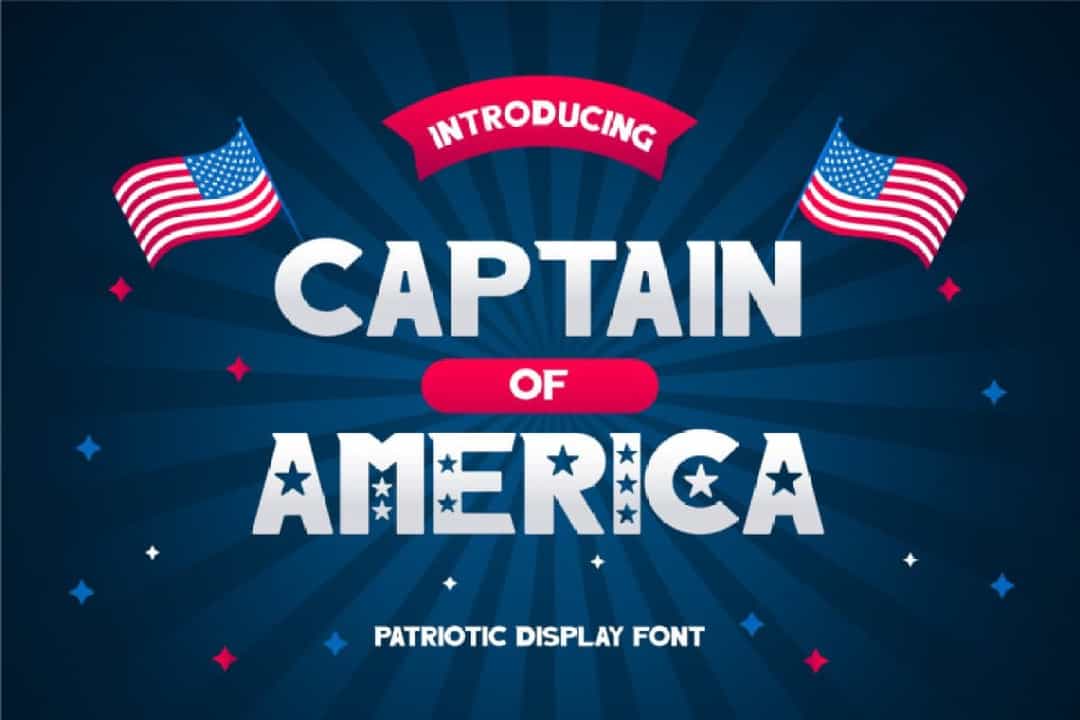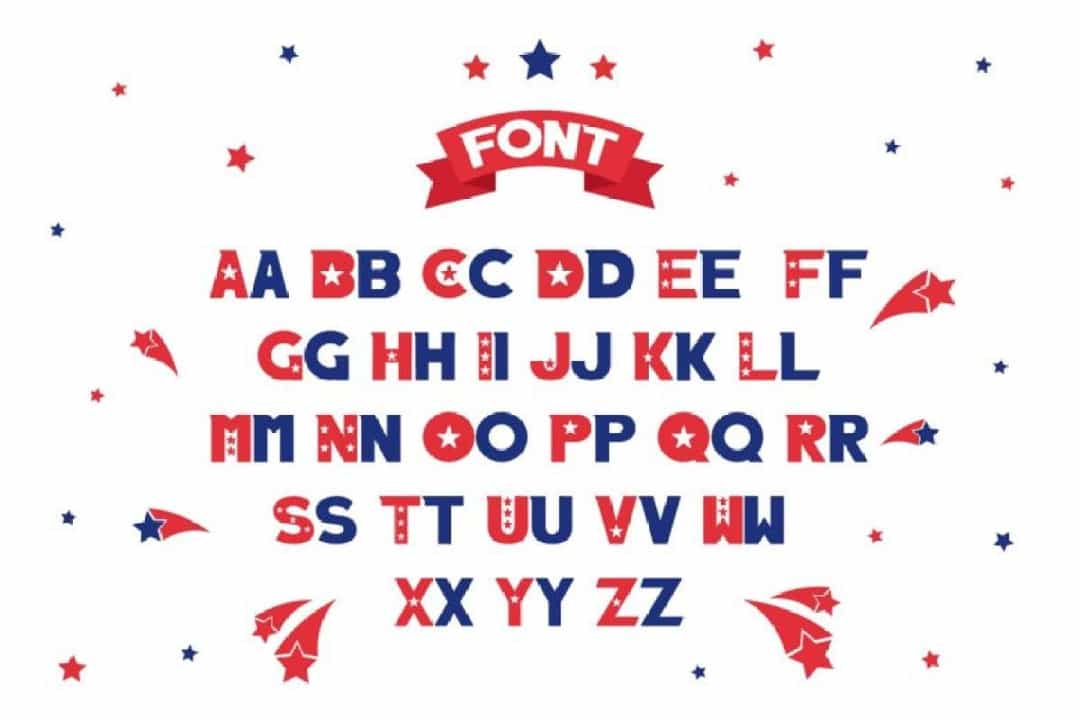
Discover Captain of America Font, part of the Sans Serif Display Stencil Army Basic Personal collection—a versatile and unique font perfect for adding a personal touch to your projects. Download it for free and enjoy crafting designs with style, from invitations to social media posts. This font is available exclusively for personal use, giving you the freedom to create without limits. Unlock your creativity with Captain of America Font today!
Captain of America Font is a great and American style font for your designing projects. This will definitely give a festive and bold look to any craft project and can be great for using an Americana typeface.